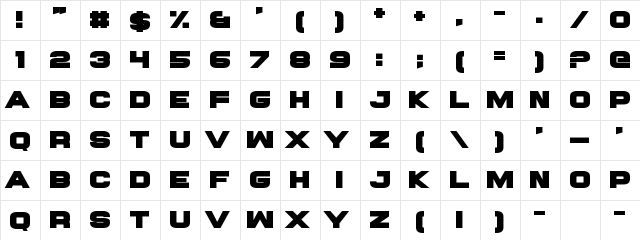
Rawhide Raw 2016 Regular
| Designer | AM |
Design Context for Rawhide Raw 2016 Typeface
Rawhide Raw 2016 takes a measured approach to typography — its balanced proportions and neutral character make it a reliable workhorse for both digital and print work.